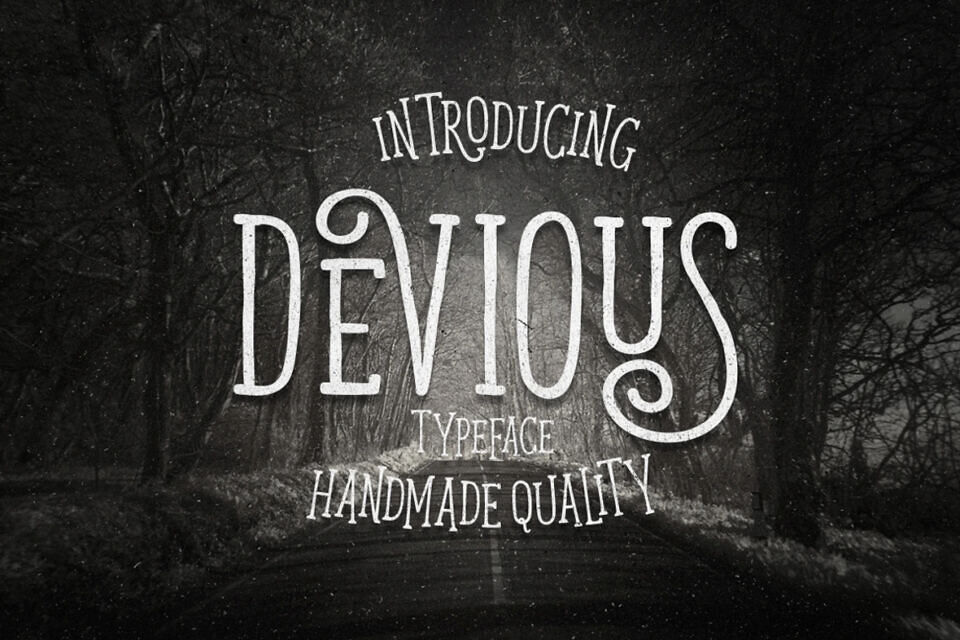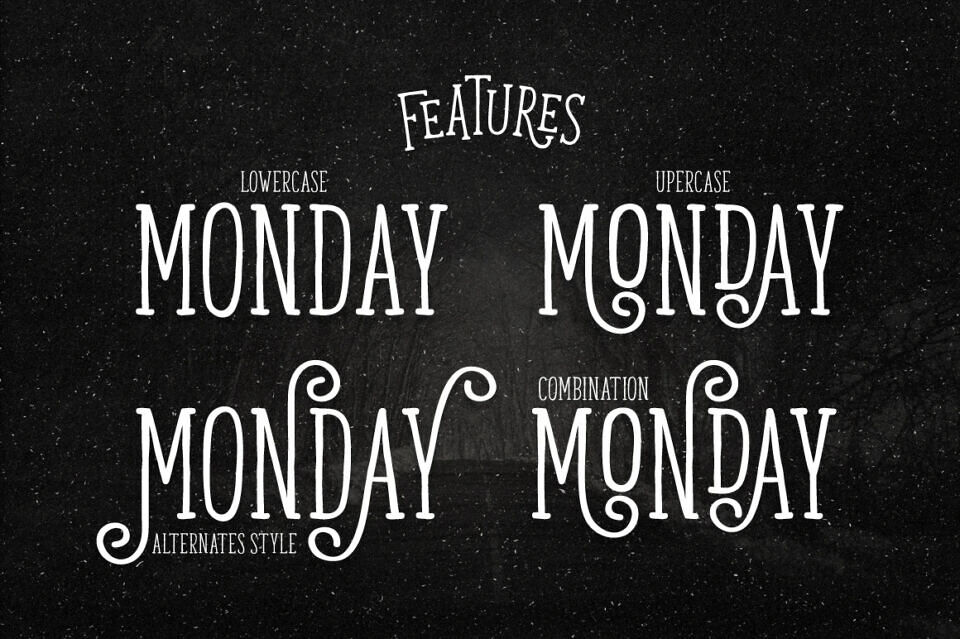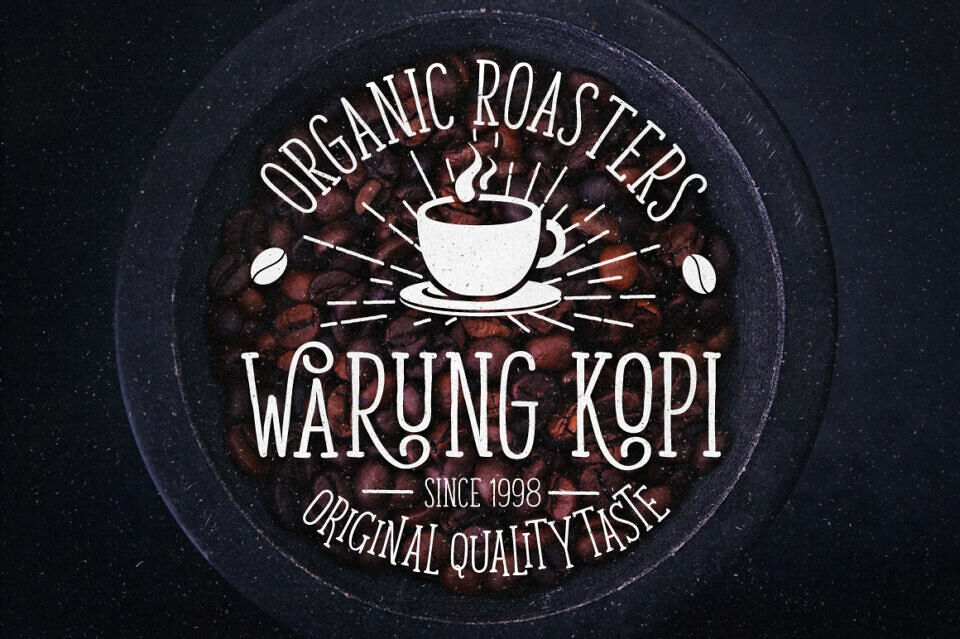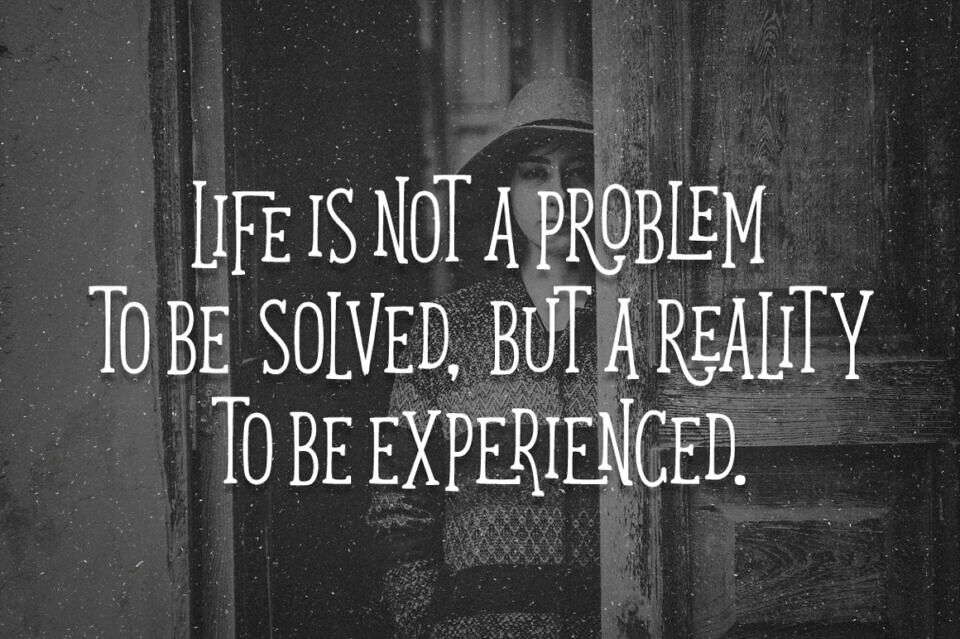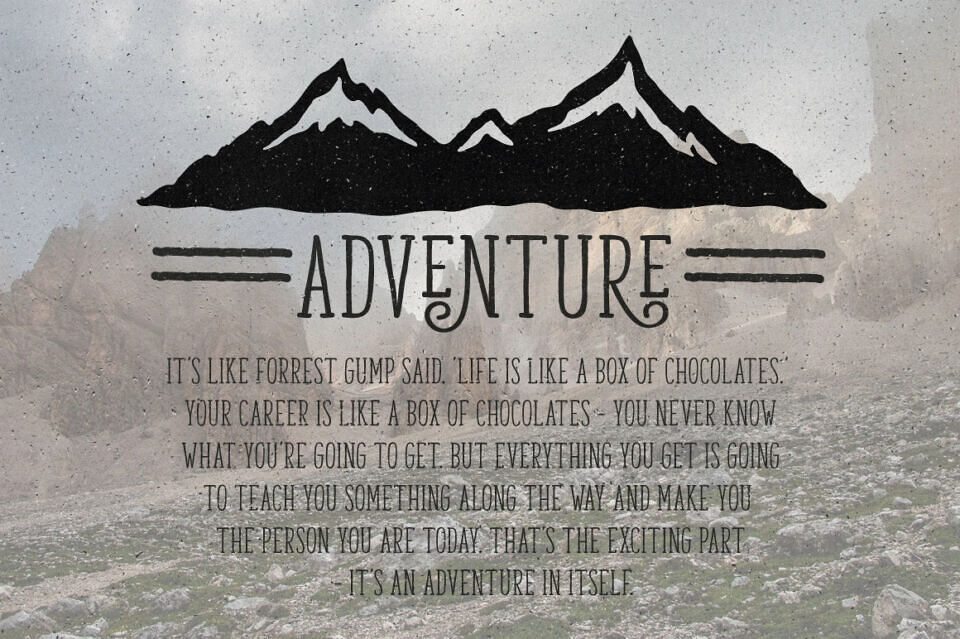
Devious Font
Devious is ahandcrafted slab serif display font with a rugged vintage aesthetic. Inspired by retro signage and classic print design, it features strong letterforms, unique character details, and excellent readability.
Perfect for logos, posters, branding, packaging, apparel, and headlines, Devious adds personality and a timeless handcrafted feel to any creative project while maintaining a striking and professional whimsical appearance.